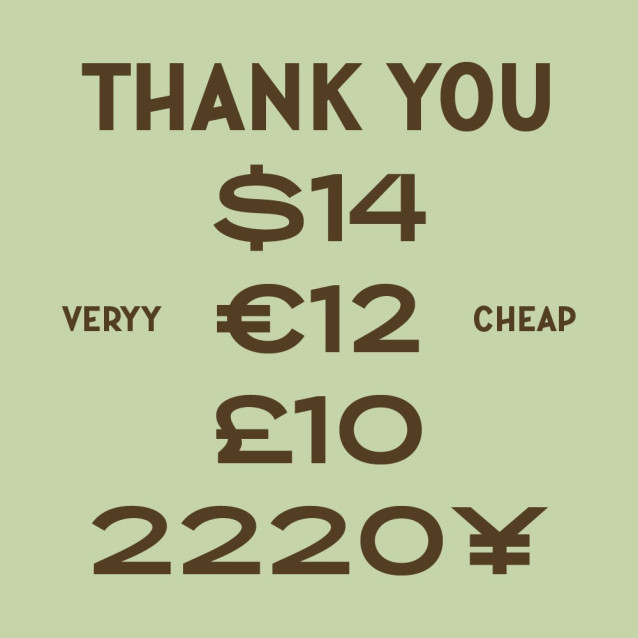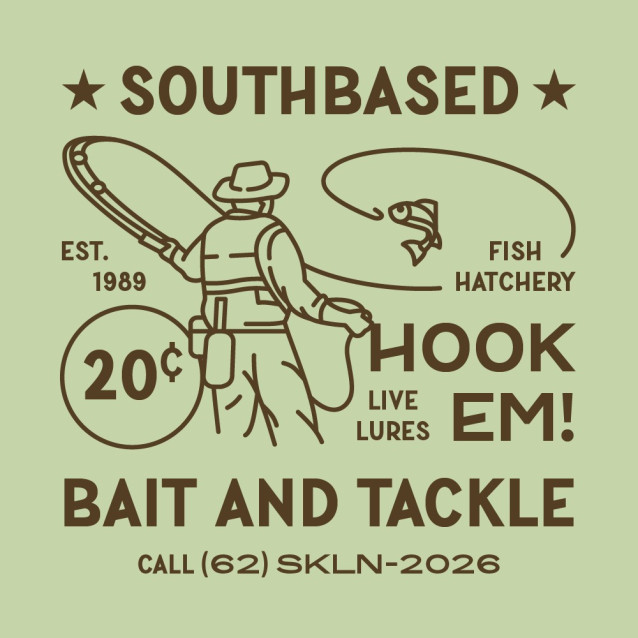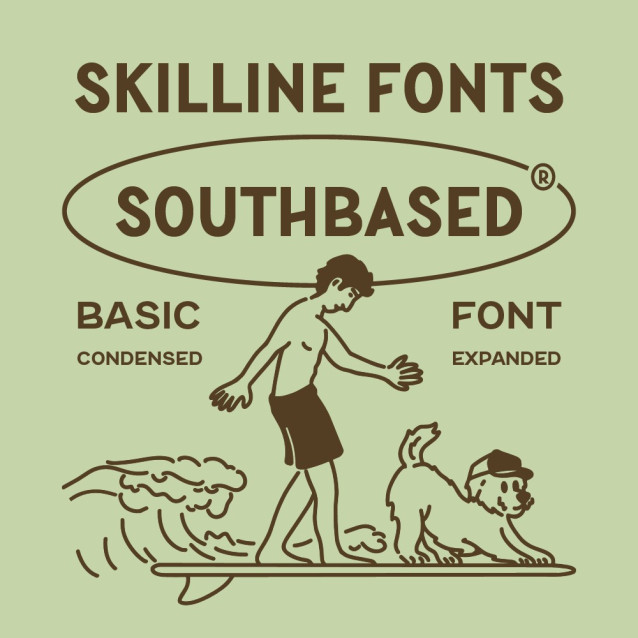
SFC Southbased Font
SFC Southbased Font is a versatile basic sans typeface inspired by classic coastal store signage, surf culture, and laid-back seaside. Built with clean shapes and casual proportions, this font captures the relaxed yet bold personality. Designed as a flexible family, Southbased comes with multiple width variations that allow designers to easily explore different layouts, from tight headline compositions to wide typography. The overall character feels casual, basic and timeless.